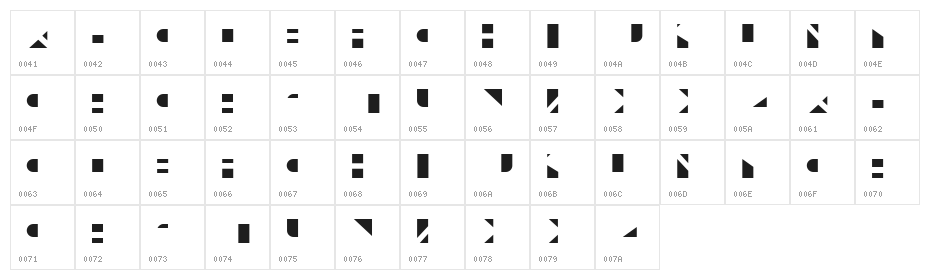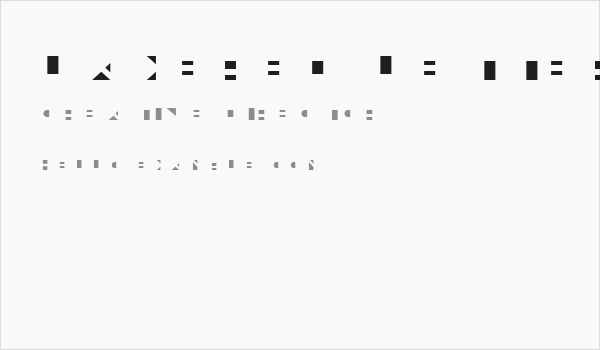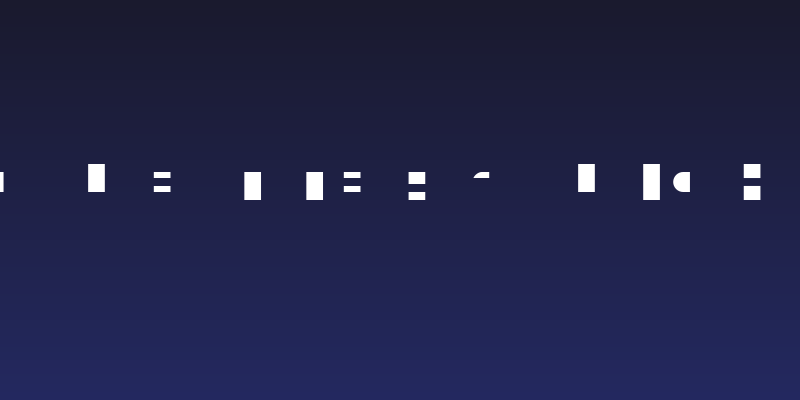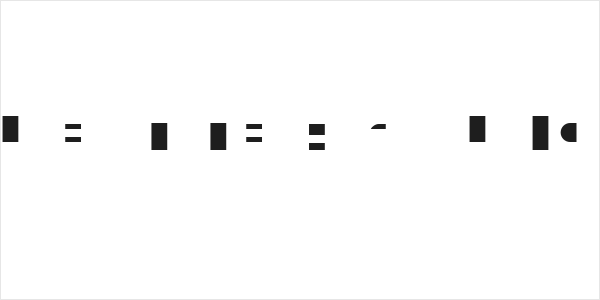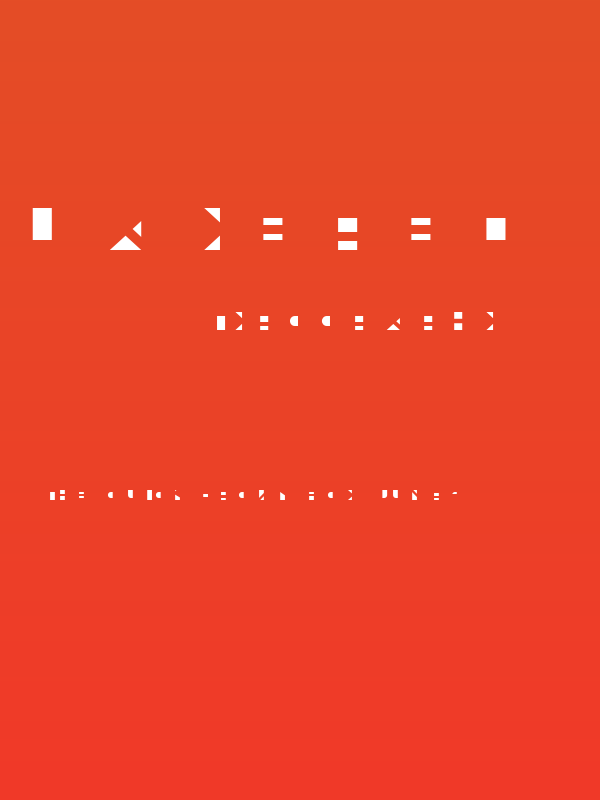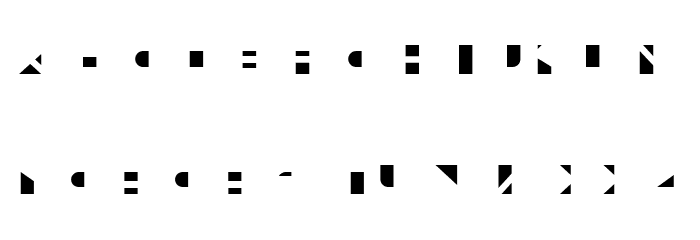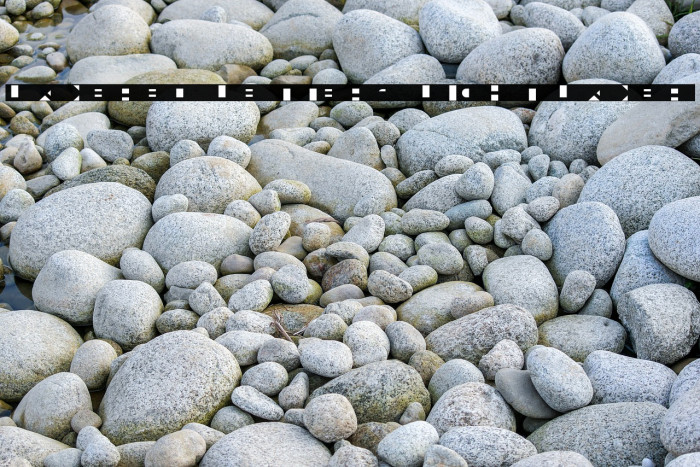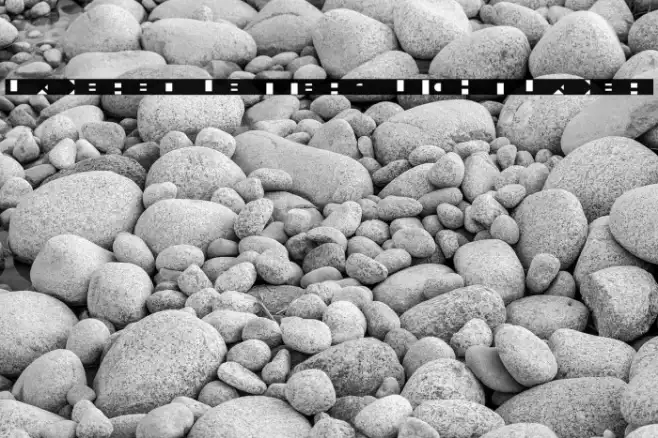
Layered Letters Light Layer Font
Layered Letters Light Layer Description
This font features a unique layered design with a modern and geometric aesthetic. Each character is composed of multiple layers, creating a sense of depth and dimension. The letters are constructed with a combination of solid and cut-out shapes, giving them a distinctive and artistic appearance. The font maintains a consistent weight throughout, with clean lines and sharp angles that contribute to its contemporary style. The spacing between characters is uniform, ensuring readability while maintaining its decorative appeal. This font is ideal for projects that require a bold statement and a creative touch.
| Proposed Projects | Ideal for branding, posters, album covers, and creative digital artwork. |